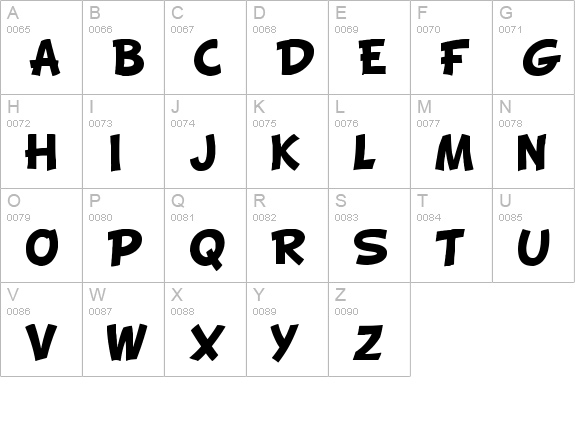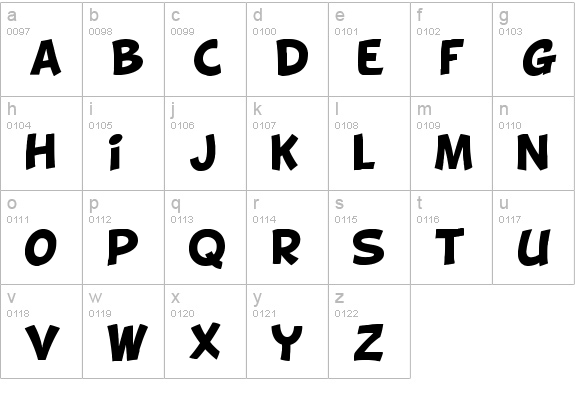
BD Cartoon Shout Font Details
BD Cartoon Shout font is a fun and playful typeface that brings a touch of whimsy to any design project. With its bold, quirky letterforms and comic-inspired aesthetic, this font is perfect for creating eye-catching headlines, posters, and logos. Whether you're working on a children's book, a party invitation, or a branding project for a creative business, BD Cartoon Shout will add a touch of personality and charm to your designs. The best part? BD Cartoon Shout font is completely free to download at FontsMarket.com. Simply visit the website and add this delightful font to your collection with just a few clicks. Don't miss out on the opportunity to enhance your designs with this fantastic font for free!